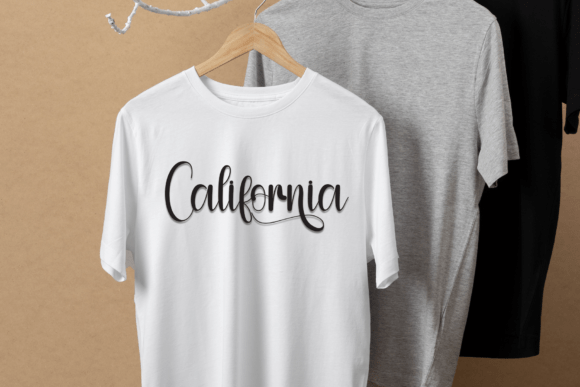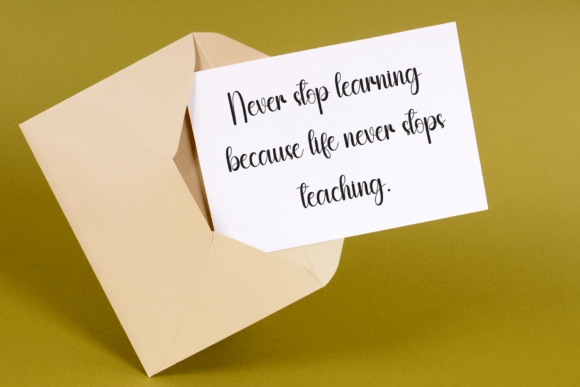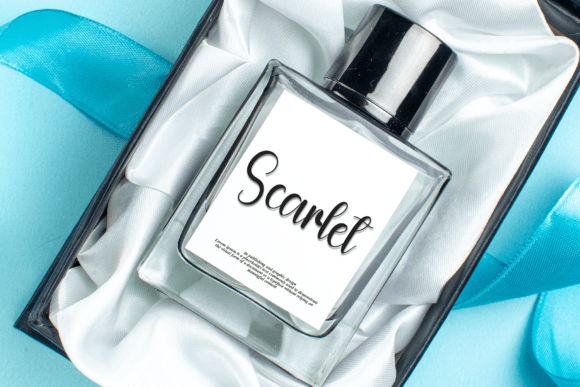
Americano Font
Immerse yourself in the charming allure of our warm and inviting handwritten font. Endowed with a sweet and amiable appeal, it perfectly encapsulates the world of whimsy and fun. This font is the perfect partner in crime for your wedding invitations or greeting cards, infusing a delightful blend of mirth and creativity into any design scheme you choose to pursue. Experience the playful touch of this lighthearted font that adds a dash of delight to your artistic endeavors.